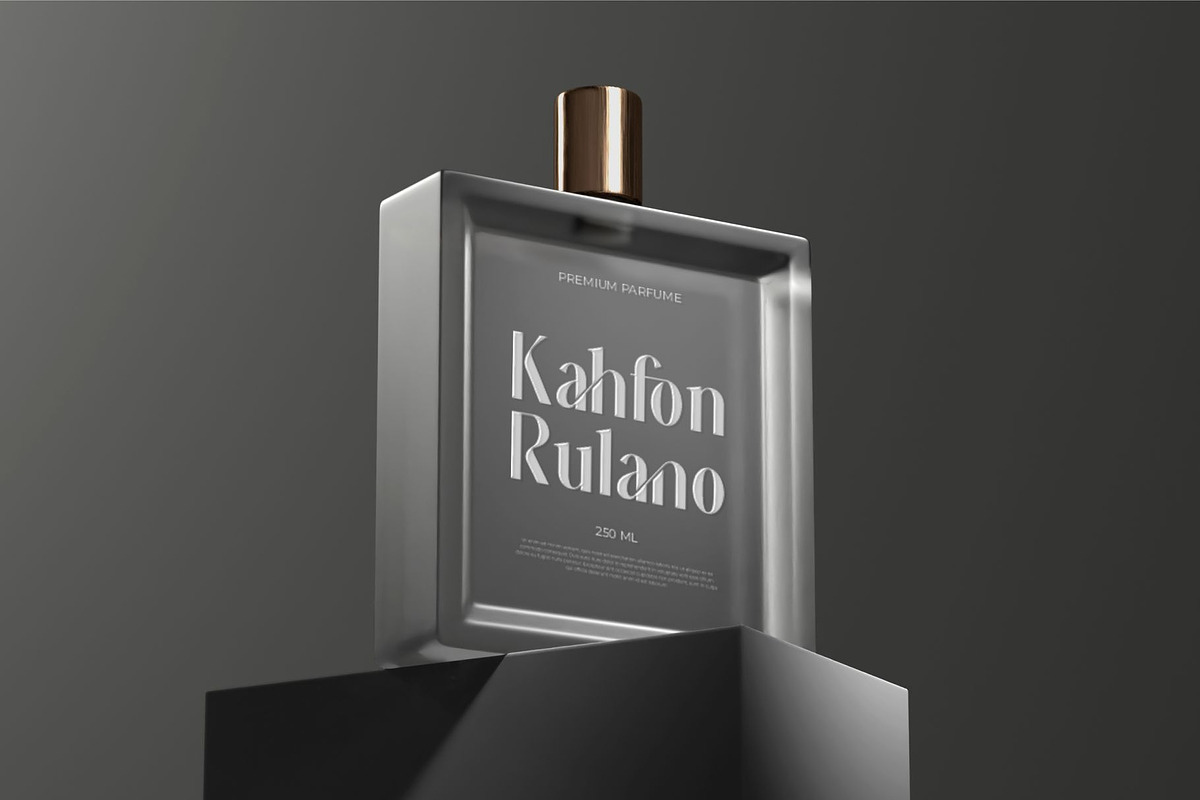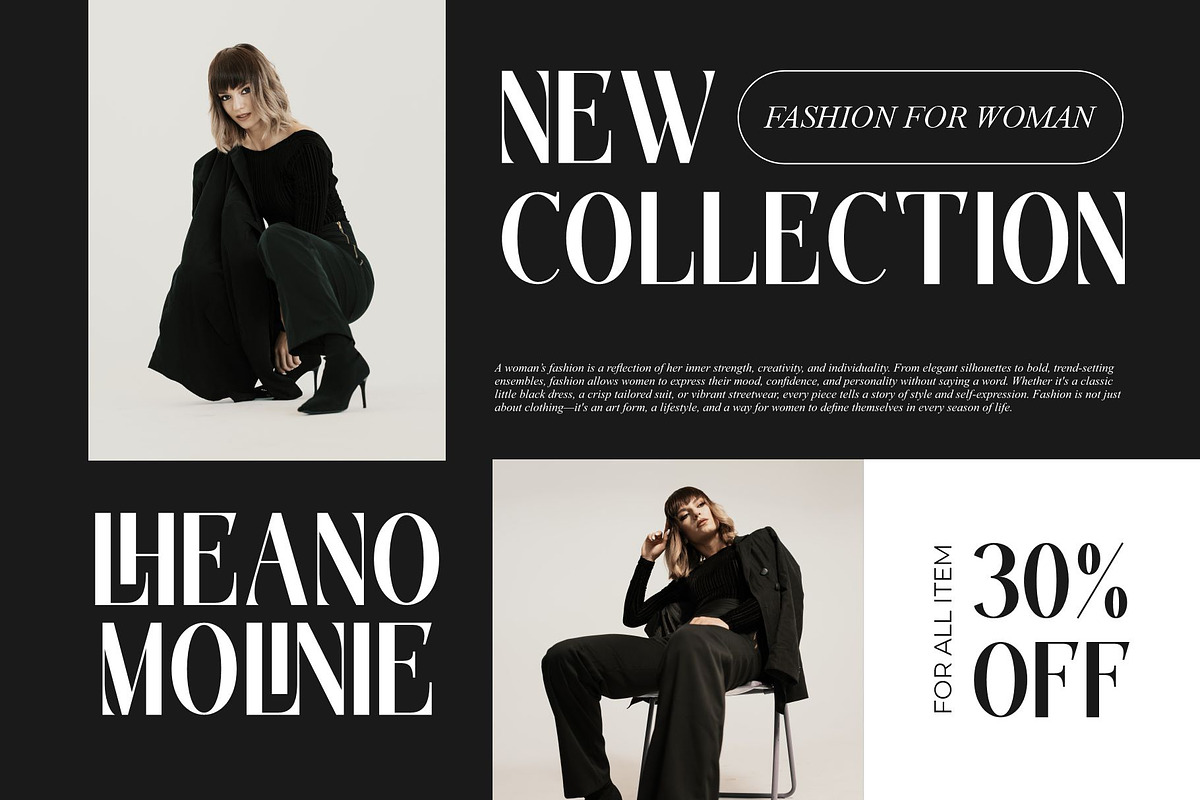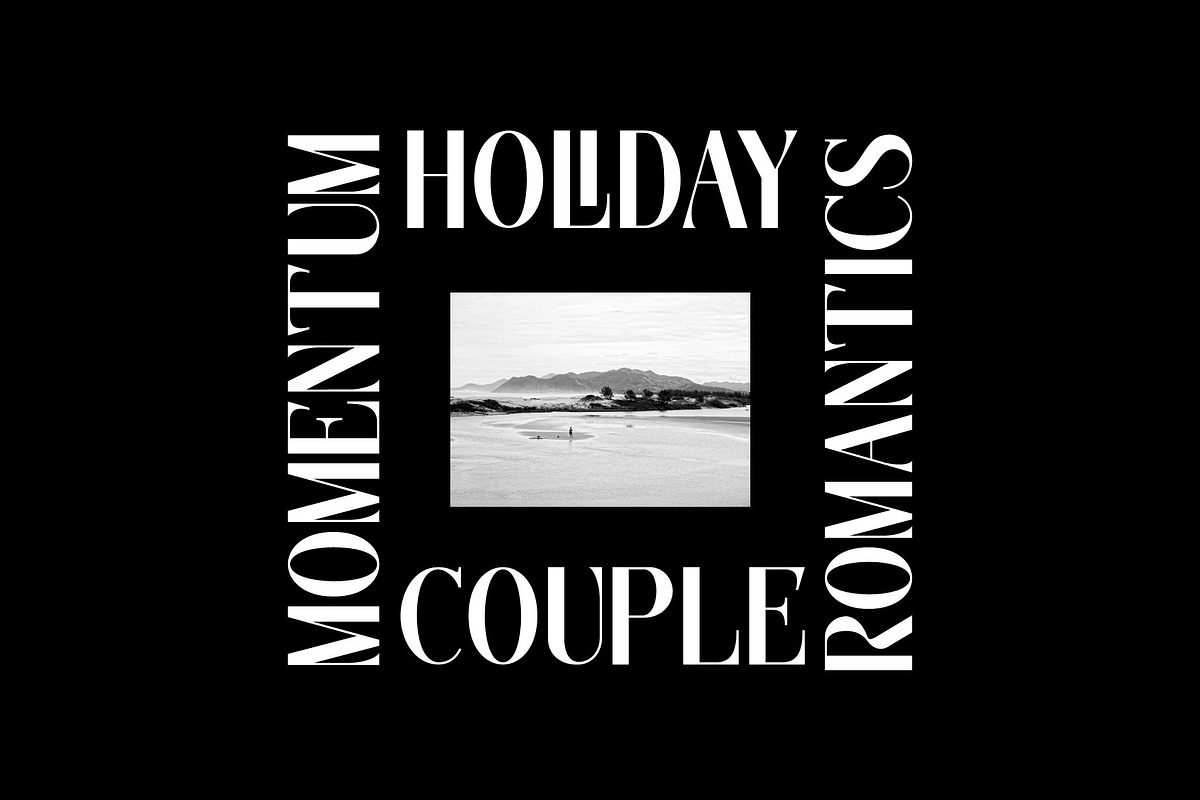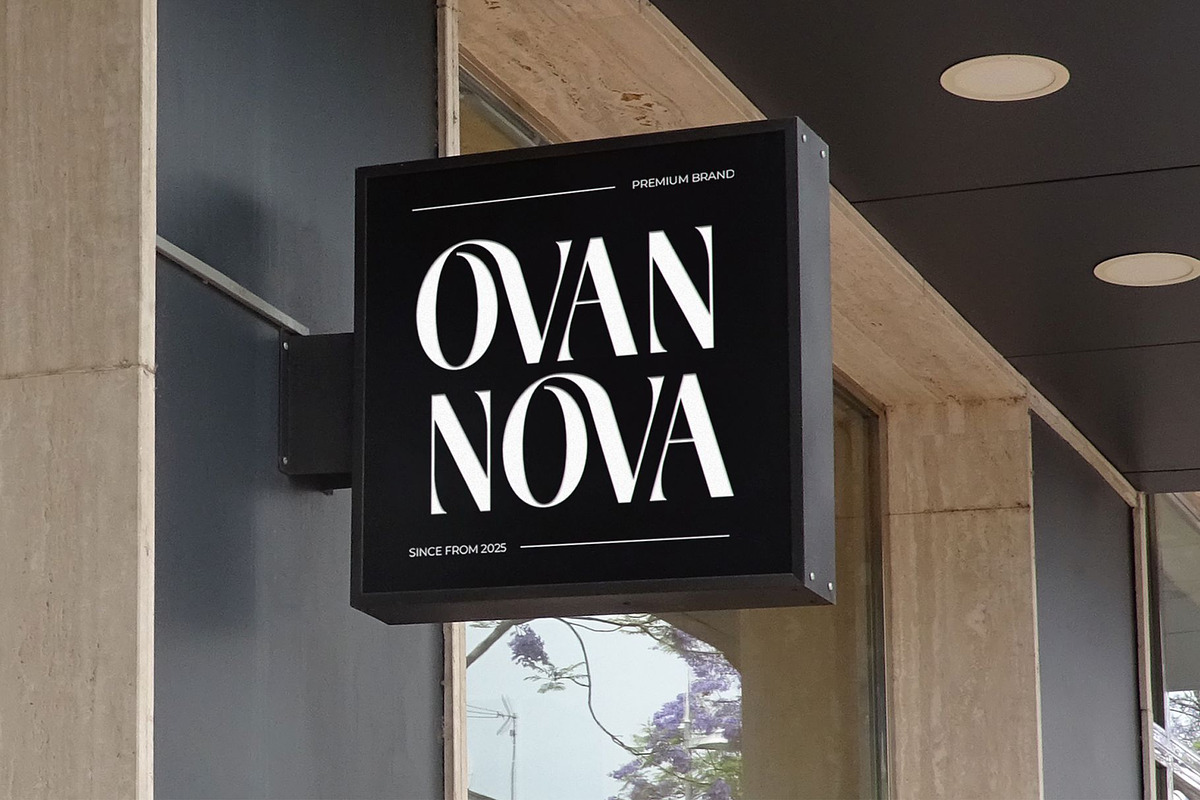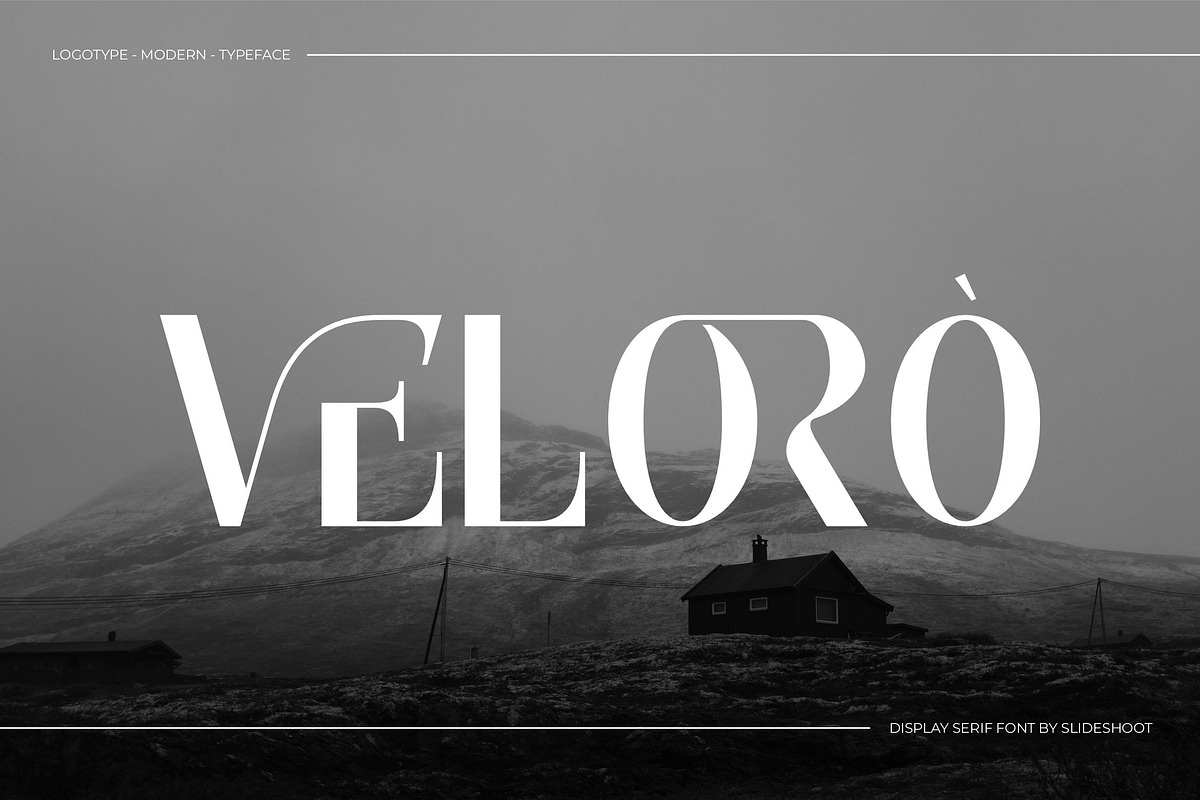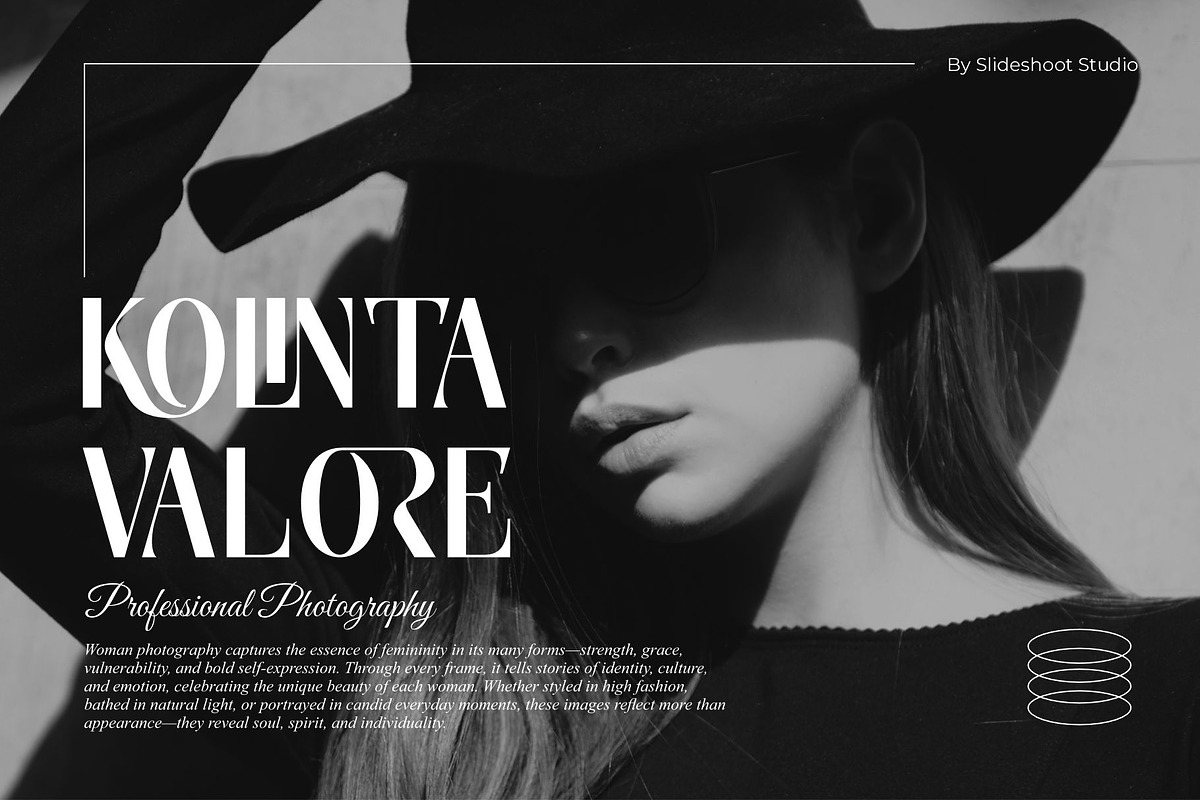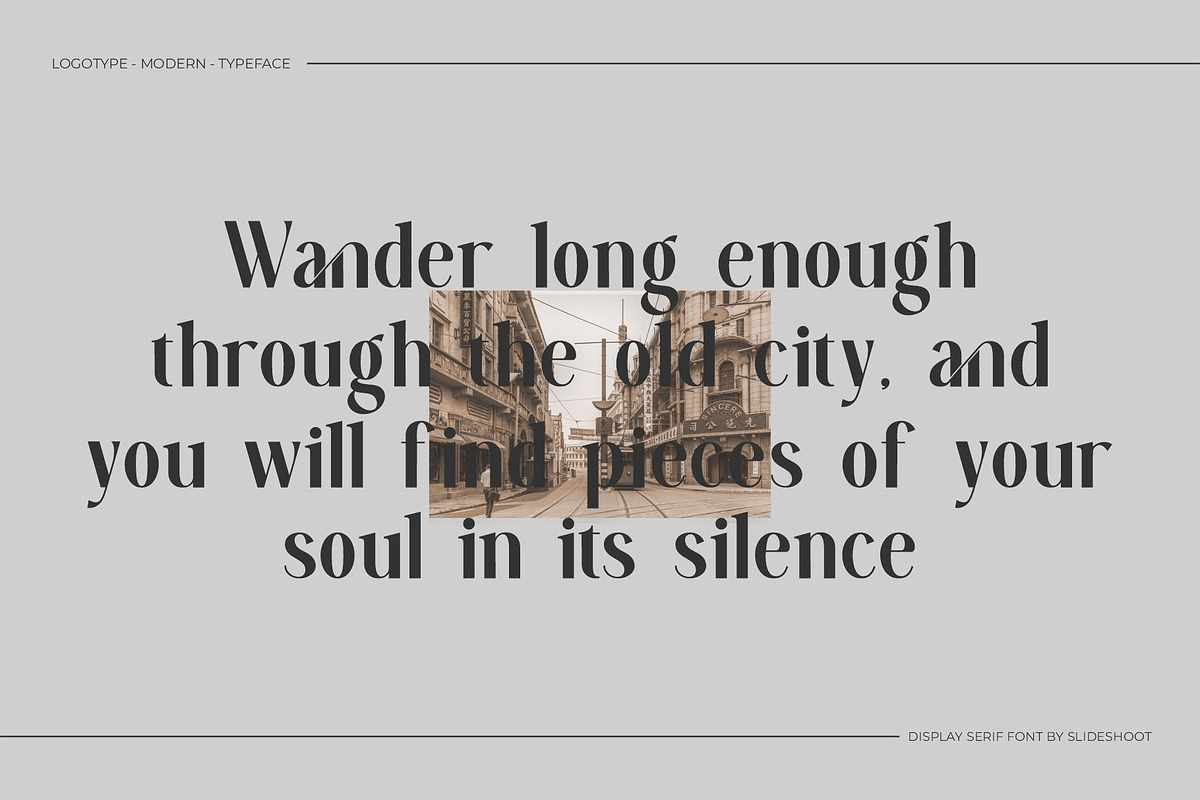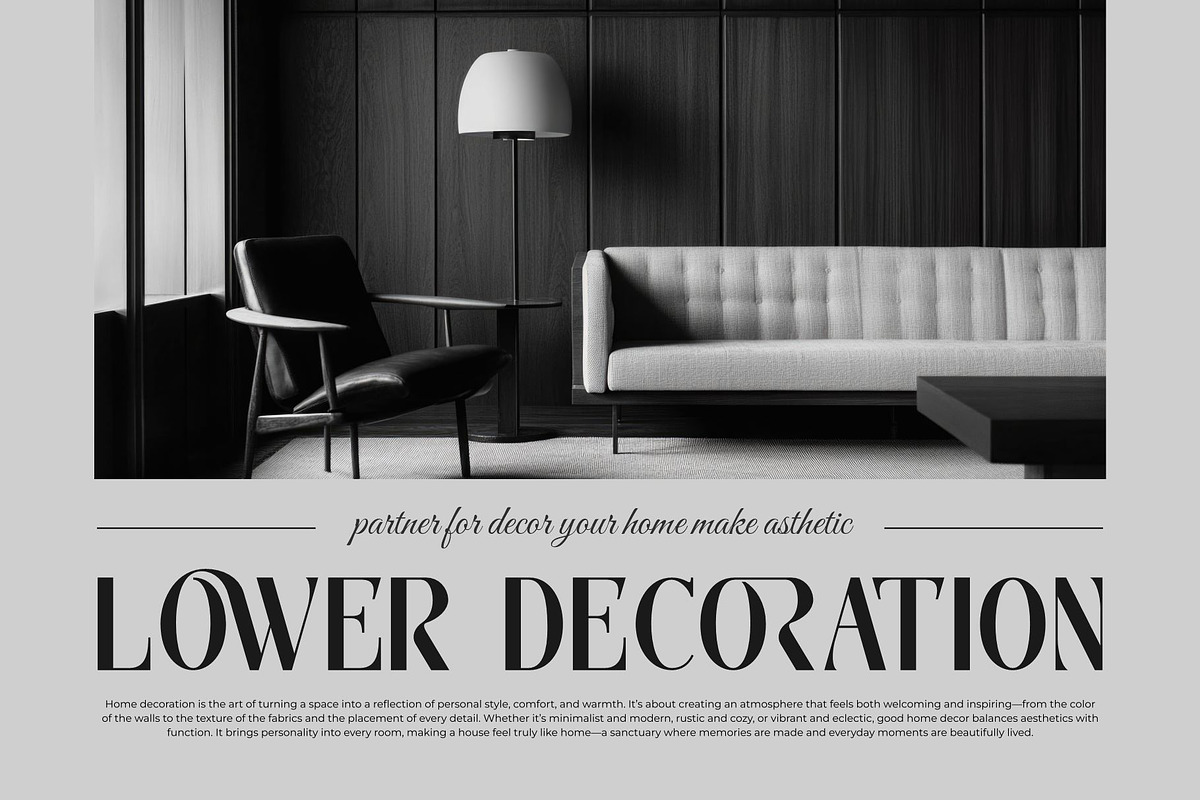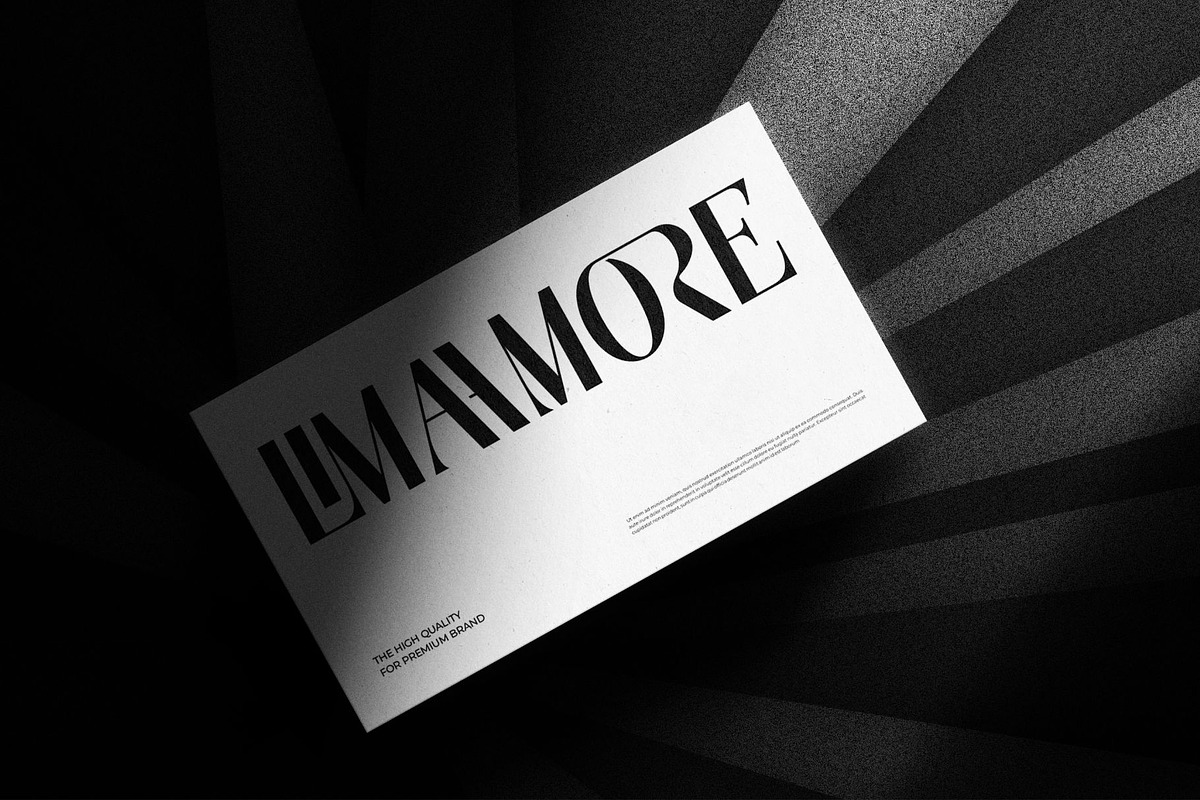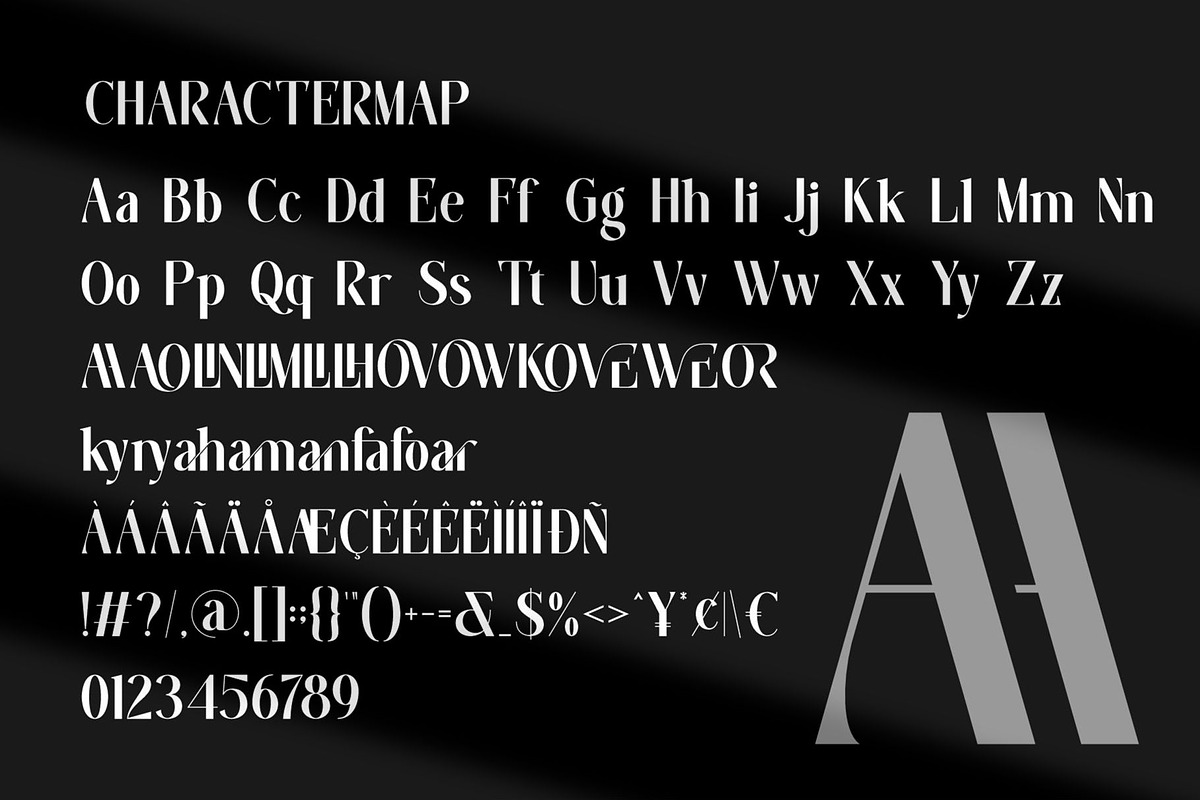
Veloro || Modern Classy Sans Serif F
Veloro Sans Serif is a modern and classy font type for all branding and logo designs. This modern and classy Sans Serif font has a beautiful character. This font is suitable for invitation card designs, cool logos, movie titles, movie names, business cards, book titles, brand names, and various other designs. Veloro Sans Serif is a smooth serif font that exudes sophistication and the moment. Its stylish ligatures make this font a perfect partner for any project.